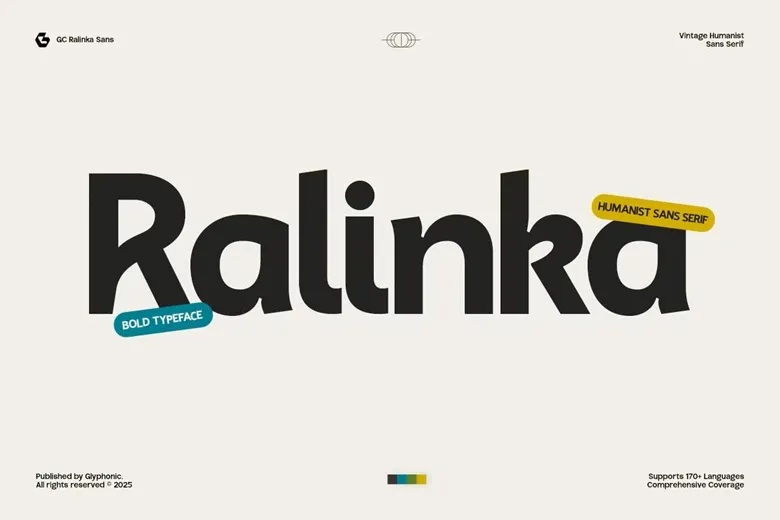
GC Ralinka Font
GC Ralinka is a modern bold sans serif font that is both warm and strong with clean and modern lines. It is created to be as readable and personality as possible, and is ideally suited to headlines, branding, logos, packaging, editorial layouts, and impactful display projects. It is designed to convey messages in a clear and confident manner and makes a lasting impact in print and digital media.
GC Ralinka has a friendly but professional tone with its solid lettering, minor curves, and harmonious proportions. This typeface is versatile and elegant enough to be used in any situation, whether it is lifestyle brands, creative campaigns, or corporate identities.
GC Ralinka Sans Serif Font